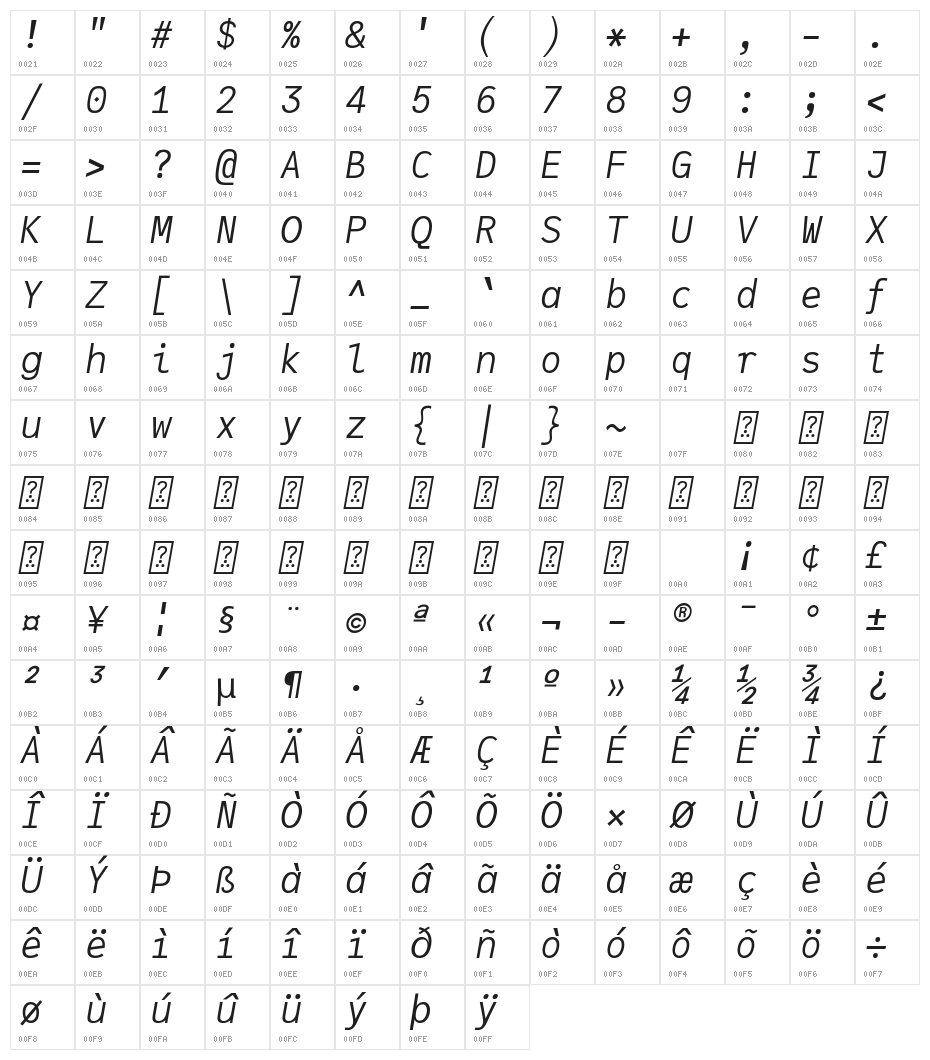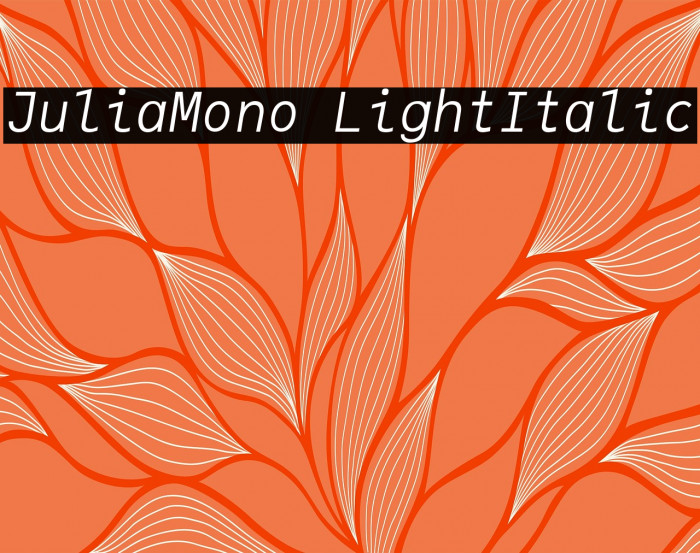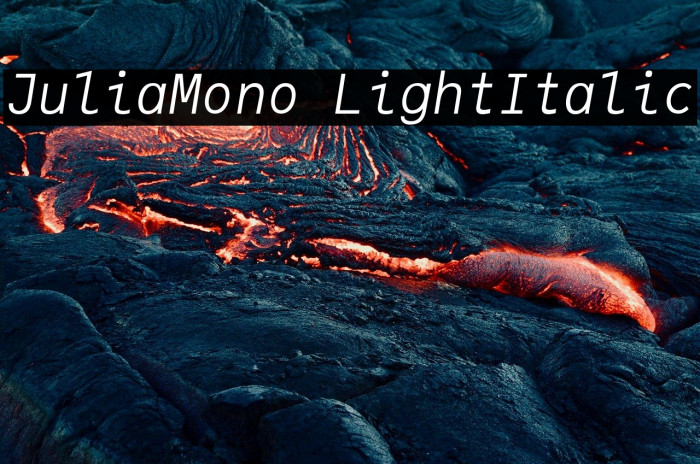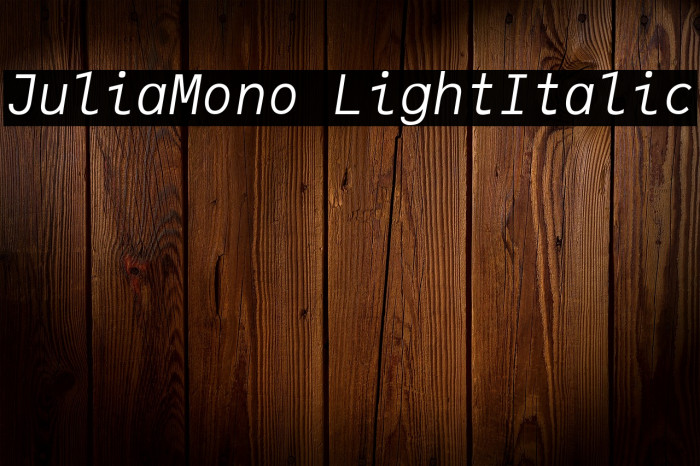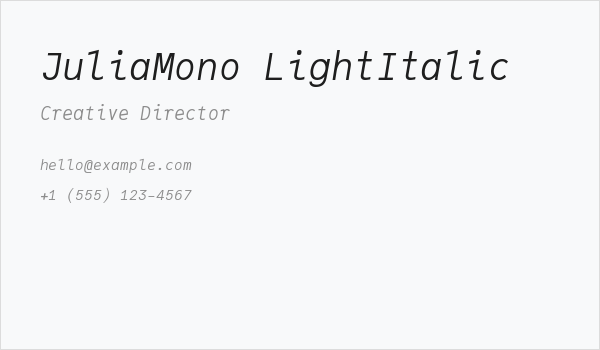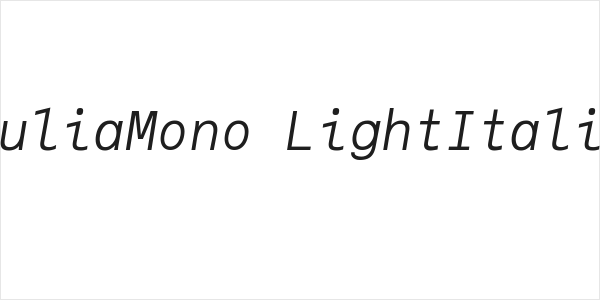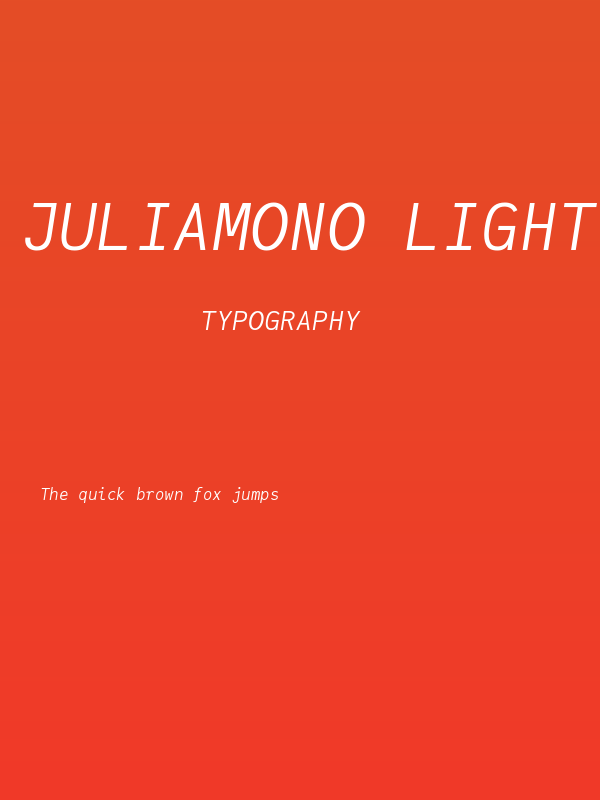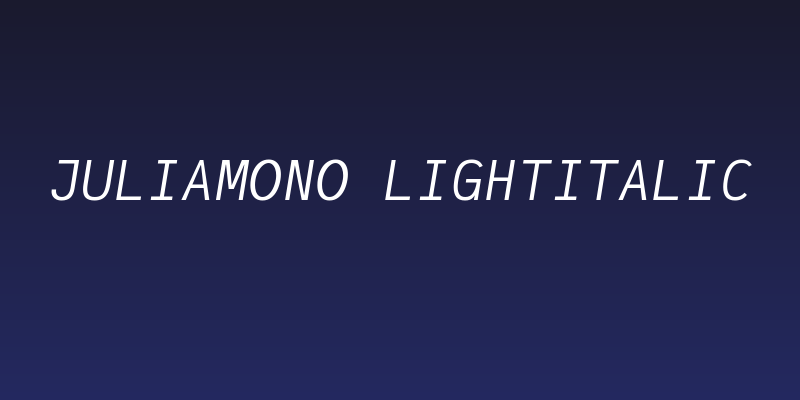
JuliaMono LightItalic Font
JuliaMono LightItalic Description
This typeface presents a clean and modern monospaced design with a light weight and italic style. Each character is uniformly spaced, offering a consistent and orderly appearance. The slanted letters add a dynamic and fluid touch, enhancing readability while maintaining a structured look. The font features a full set of uppercase and lowercase letters, numerals, and a variety of special characters, making it versatile for various applications. Its simplicity and clarity make it suitable for coding environments, technical documents, and any context where precision and legibility are paramount. The subtle curves and straight lines blend seamlessly, providing a professional yet approachable aesthetic.
| Use Case | Coding, Technical documents, Minimalist design |
| Proposed Projects | Ideal for coding, technical documentation, and minimalist design projects. |